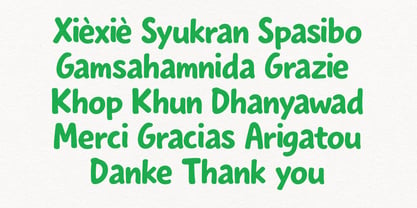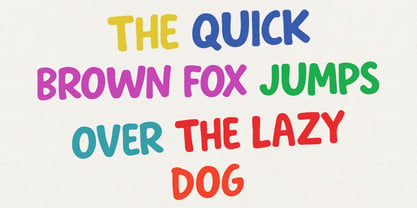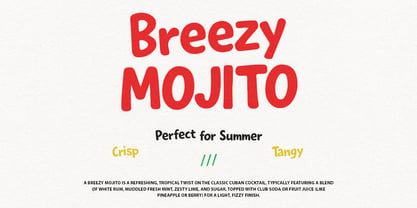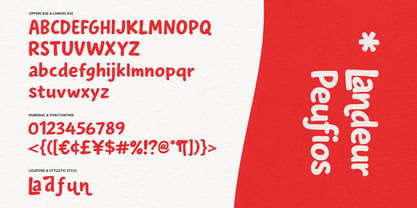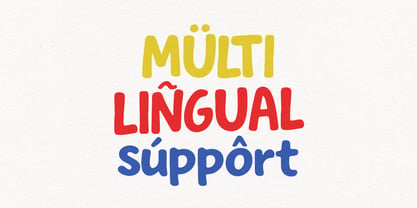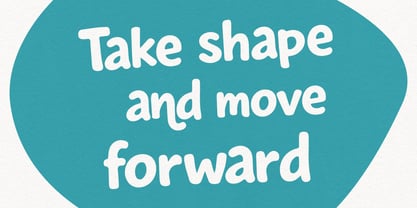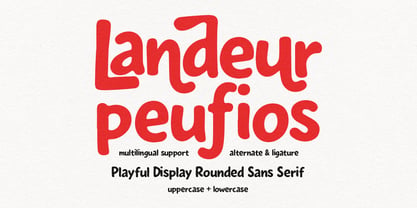
MC Landeur Peufios
by Maulana Creative
The MC Landeur Peufios Font Family was designed by Gilang Maulana and published by Maulana Creative. MC Landeur Peufios contains 1 styles. More about this family
Landeur Peufios is a vibrant and friendly rounded sans serif typeface designed to bring a sense of joy and approachability to any creative project. Characterized by its soft edges, organic curves, and unique ligatures, this font family offers a handmade feel that balances modern minimalism with a whimsical spirit. Its thick, consistent stroke weight ensures excellent legibility in headlines and display headers, while the included multilingual support and stylistic alternates provide versatile options for global branding, packaging, and digital content.
Designers: Gilang Maulana
Foundry: Maulana Creative